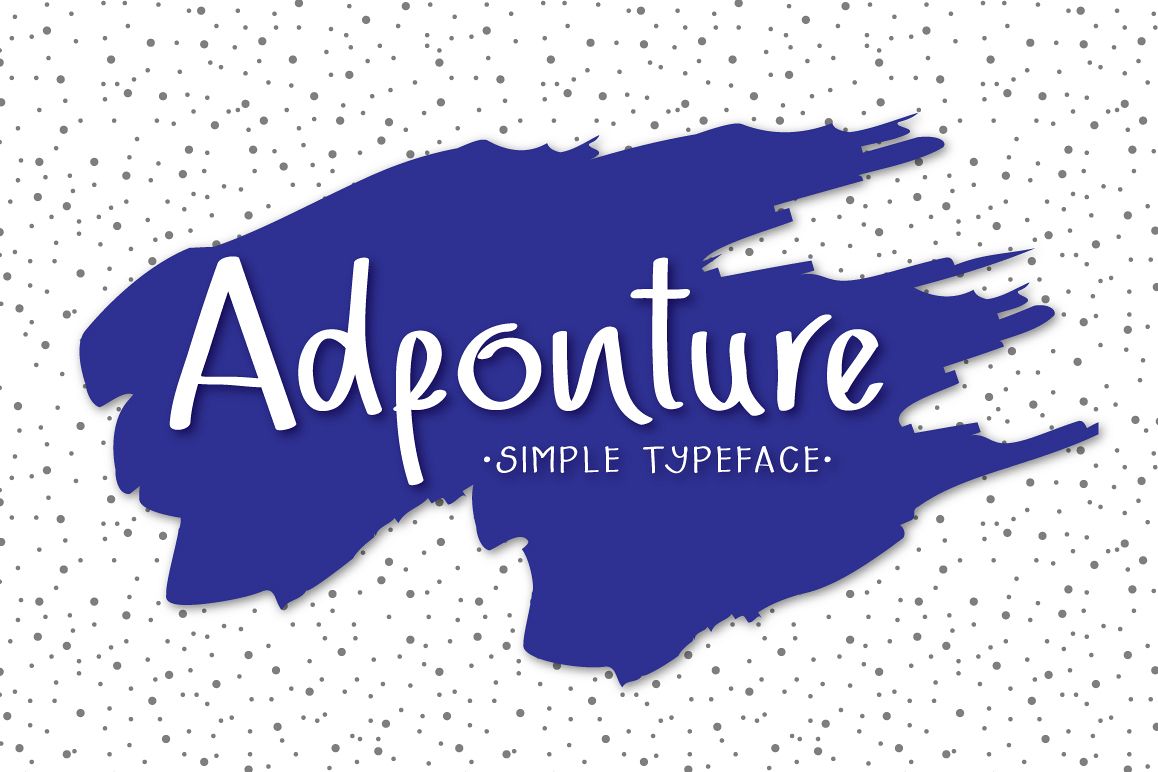
Adfonture Typeface
Adfonture Typeface is random handbrush, contemporary approach to design, handmade natural with an less regular baseline. Suitable for use in title design. Such as apparel, invitations, children books tittle, stationery design, quotes, branding, logos, greeting card, t-shirt, packaging design, poster and more.